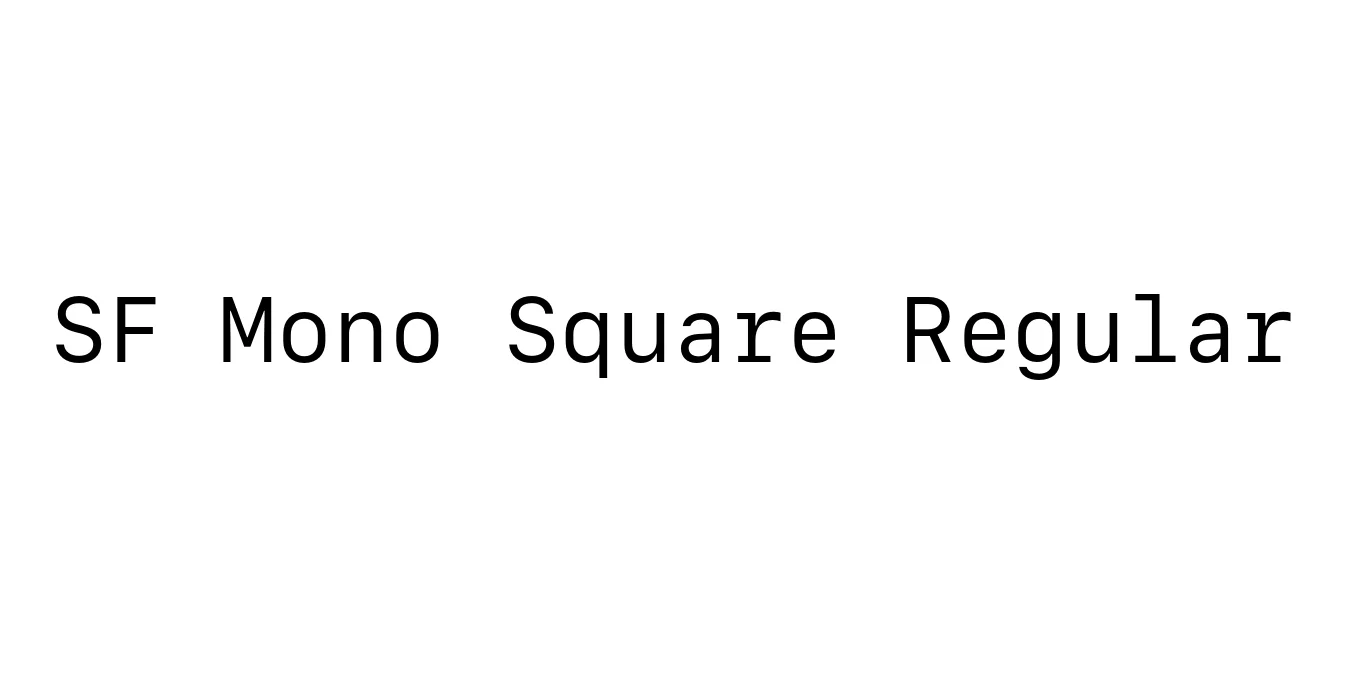
SF Mono Square Regular
Designed by Apple Inc.
| Category | Monospace / Programming |
| Designer | Apple Inc. |
SF Mono Square Regular is a refined monospaced typeface derived from the Apple San Francisco family, specifically engineered for deep-level technical environments. Initially introduced as the default font for development tools like Xcode, it was designed to prioritize clarity and legibility above all else. The 'Square' variant often refers to a specifically patched or metric-aligned version of the font that ensures a perfect 1:1 aspect ratio in terminal grids, making it a top choice for developers who demand precise visual alignment in their code editors.
The typeface is highly regarded for its modern, minimalist aesthetic and its ability to distinguish between easily confused characters, such as the letter 'O' and the number '0'. Its clean lines and consistent stroke weights ensure that code remains readable even at very small point sizes. As a staple in the Apple ecosystem, SF Mono Square Regular provides a professional and cohesive experience for users working across macOS and iOS development environments.
SF Mono Square Regular Best Uses
The primary choice for writing and reading code in IDEs like Visual Studio Code or Xcode.
Excellent for command-line interfaces where character alignment is critical.
Used for displaying snippets of code or technical instructions in manuals and blogs.